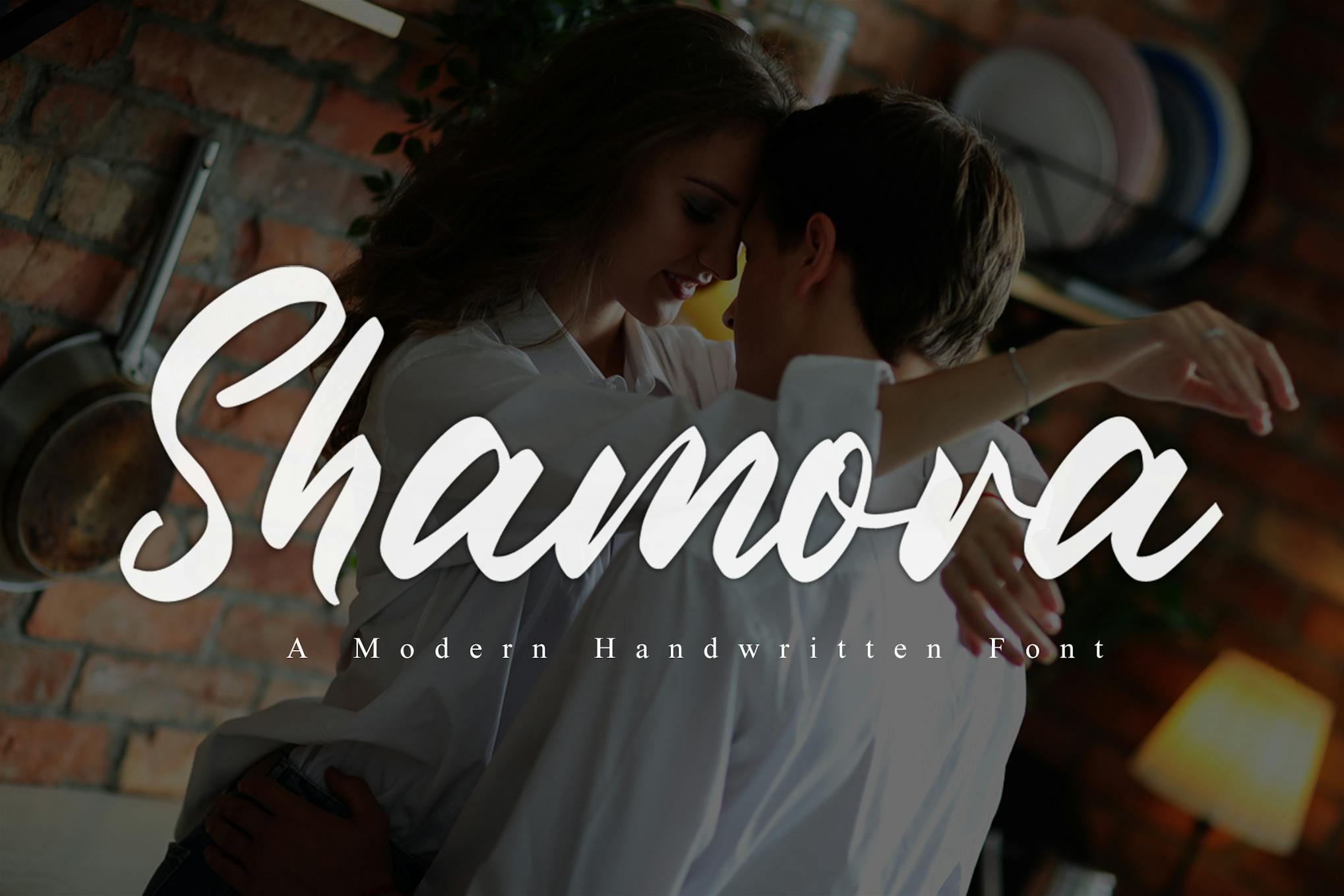
Shamora - Wedding Font
The Shamora - Wedding Font excels in exotic design applications including enchanting wedding invitations, mystical bridal branding, exotic ceremony logos, mysterious product packaging, enchanted business cards, mystical portfolios, exotic greeting cards, mysterious social media graphics, enchanted event signage, and mystical marketing materials. Its exotic script style makes it perfect for projects requiring mysterious elegance that communicates enchantment and establishes mystical brand positioning with audiences seeking exotic wedding experiences and mysterious sophistication.
What makes the Shamora - Wedding Font genuinely exciting is its exceptional ability to capture the exotic beauty and mysterious allure of enchanted weddings through mystically crafted letterforms. The font features flowing, exotic strokes with mysterious flourishes and enchanted proportions that create a distinctly mystical appearance. Each character displays remarkable attention to exotic detail with mysterious curves, enchanted connections, and mystical spacing that give text a beautifully exotic, hand-lettered quality. The font's mysterious character and exotic rhythm create an atmosphere of enchanted mystery while maintaining elegant sophistication and wedding authenticity.
The Shamora - Wedding Font family typically includes regular weight with extensive character coverage, featuring uppercase and lowercase letters, numerals, punctuation marks, and international characters. The typeface often incorporates stylistic alternates, contextual ligatures, and mysterious swashes that enhance its signature exoticism. These additional elements provide designers with creative flexibility to customize text appearance and achieve more natural-looking exotic handwriting that reflects the font's mysterious and enchanted character.
This mystical signature font distinguishes itself through its remarkable balance of exotic charm and sophisticated elegance. Unlike ordinary fonts that lack mysterious appeal, Shamora - Wedding Font embraces the power of exotic design to create enchanting connections with mystical wedding audiences. The font's mysterious character makes it essential for exotic wedding planners, mystical brands, and enchanted celebration businesses where creating mysterious wedding experiences and exotic memories is fundamental to success in mystical wedding markets.